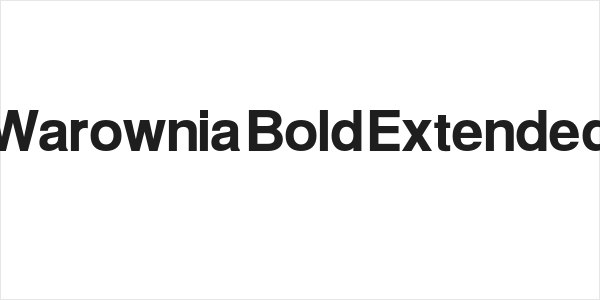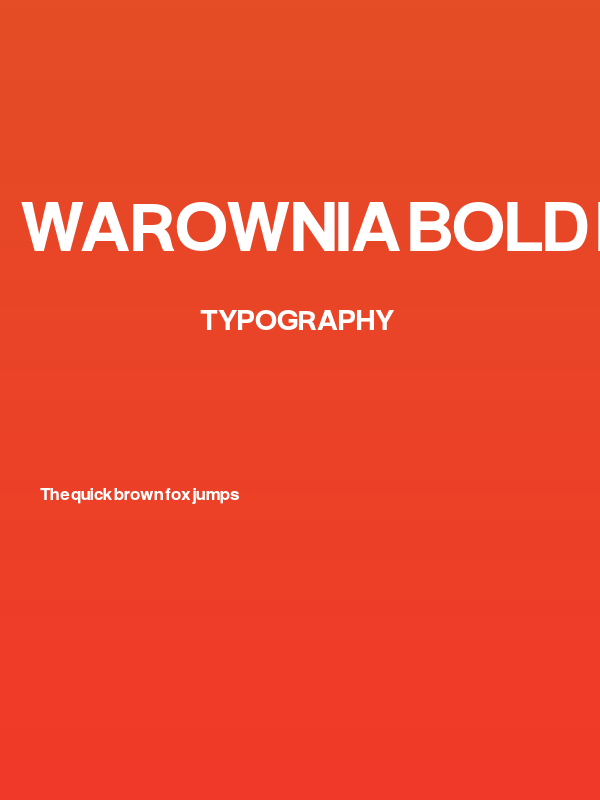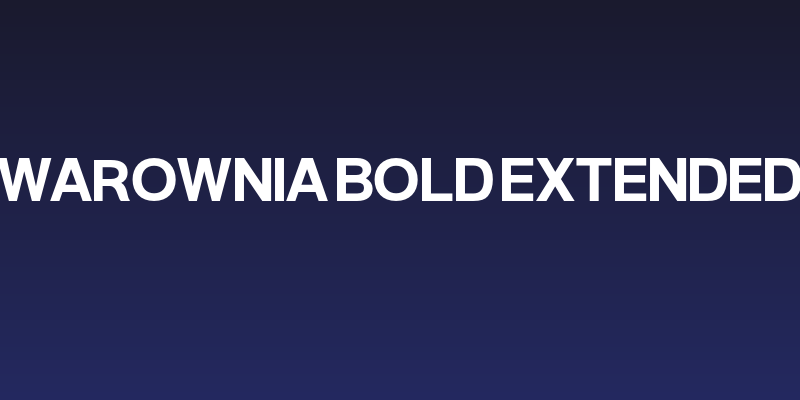
Warownia Bold Extended Font
Warownia Bold Extended Description
This typeface is characterized by its bold and extended letterforms, offering a strong and impactful presence. The uppercase and lowercase letters are well-proportioned, with a consistent stroke width that enhances readability. The numerals are clear and distinct, making them suitable for various applications. The special characters are well-designed, maintaining the overall aesthetic of the font. Its boldness and extended width make it ideal for headlines and display purposes, where attention is crucial. The font's clean lines and modern style contribute to its versatility, allowing it to be used in both digital and print media.